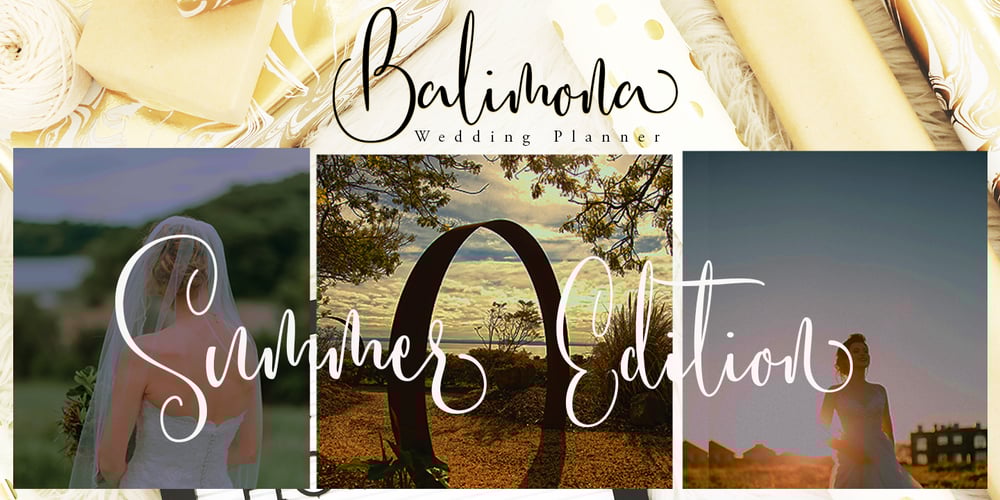
Maybrown Font Family was designed by Ak Mal and published by Akrtype Studio. Maybrown contains 1 styles and family package options. Maybrown is an elegant script. It is slender, feminine and classy, while still maintaining a friendly feel. Maybrown script is versatile and will work perfectly for any project that needs to feel sleek and chic.Maybrown include ligatures, capital letters and alternate letters. You need a program that supports OpenType features like Adobe Illustrator, Adobe Photoshop CC, Adobe Indesign and Corel Draw. and you can also access alternative flying machines via Font Book (Mac users) or Windows Character Map (Windows users).